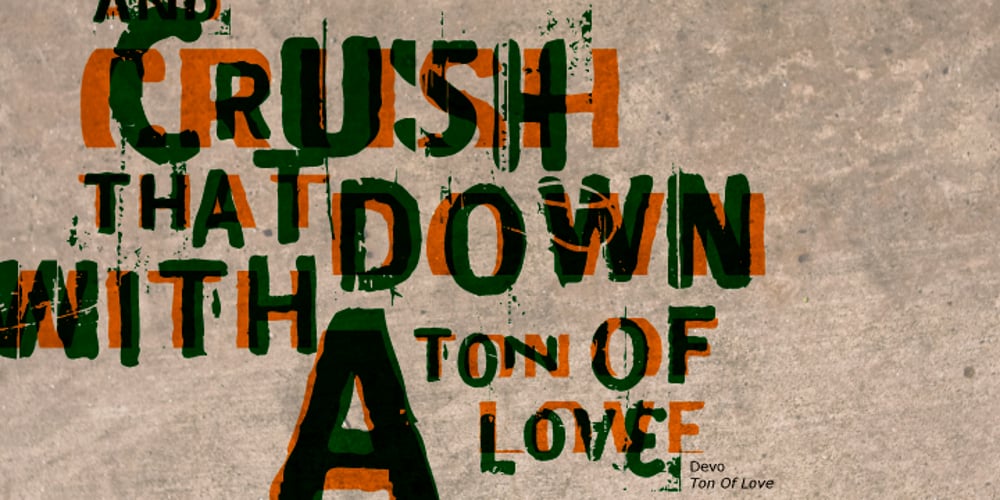
Maim Font Family was designed by Michael Wallner and published by The Type Fetish. Maim contains 5 styles and family package options. Maim is one messed up sans serif typeface. Designed to be used as a family by intermixing the letters for more random looking destroyed text.